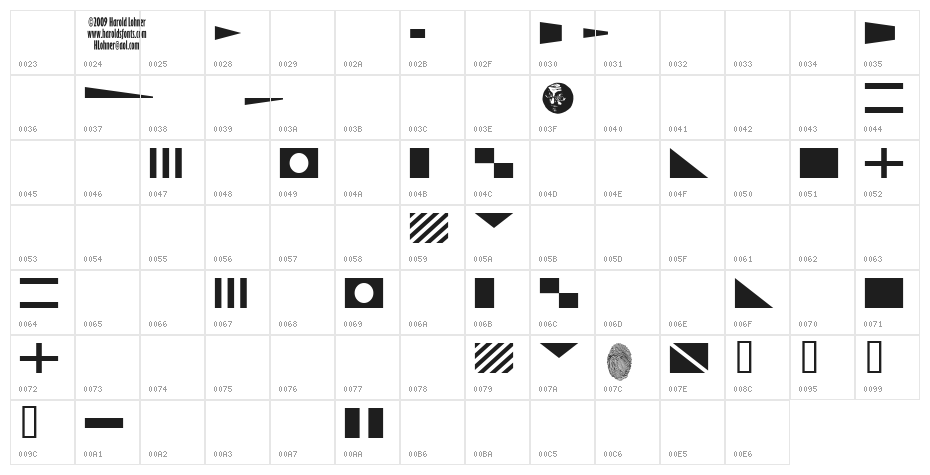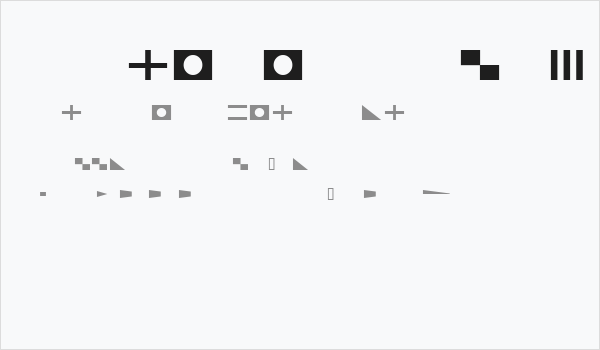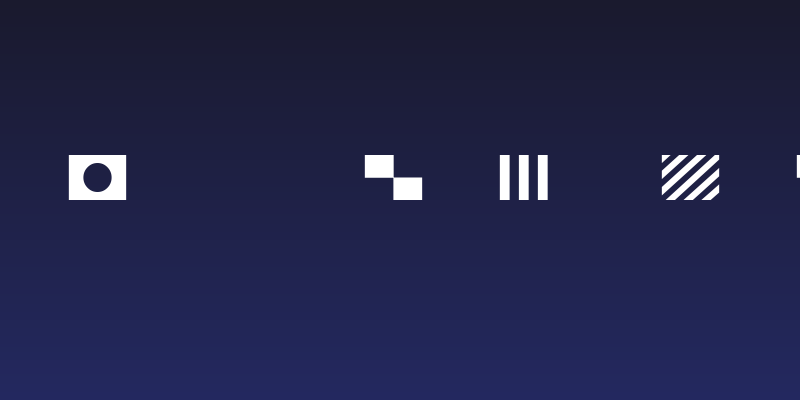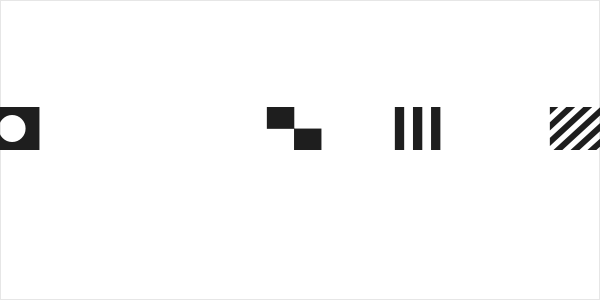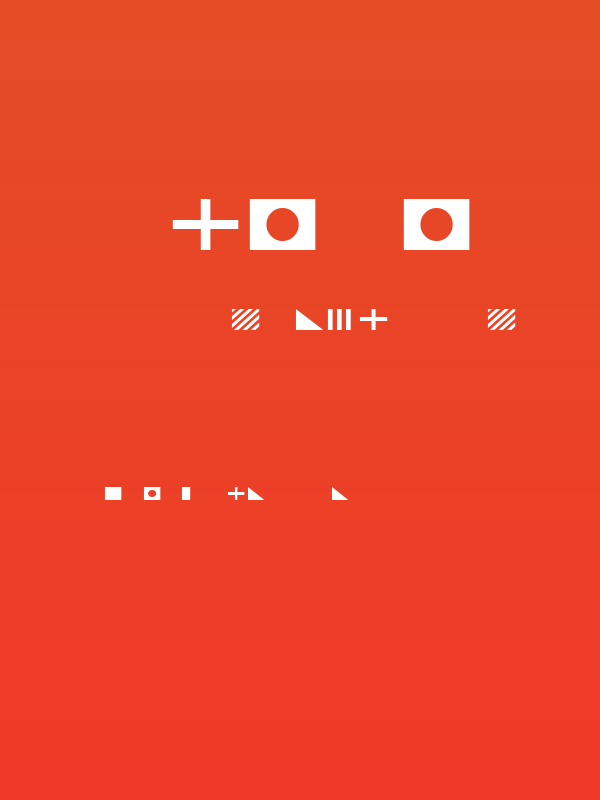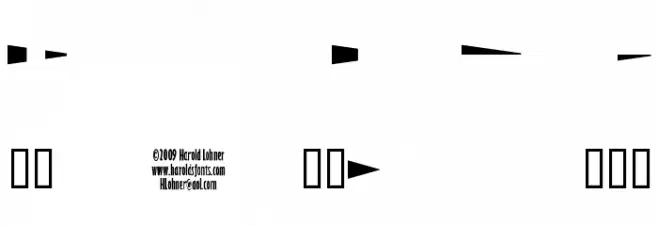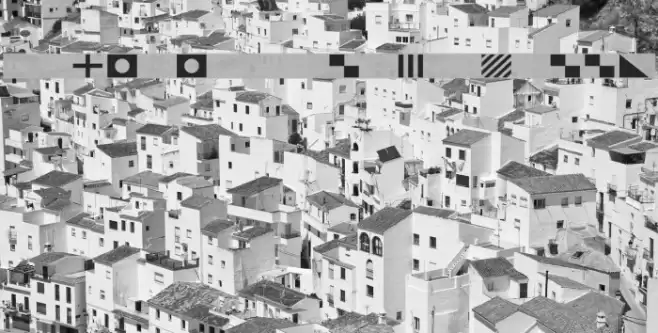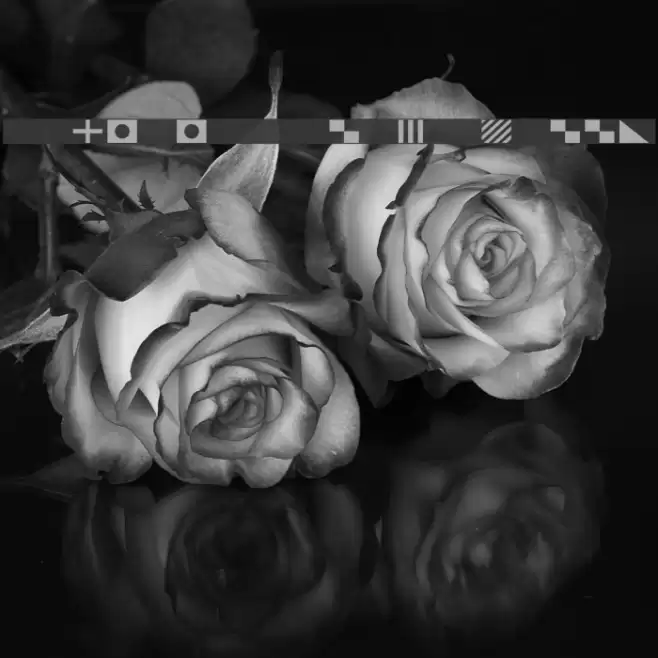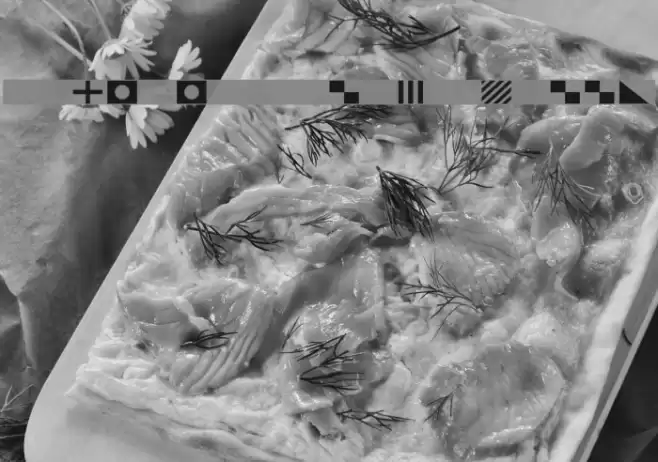
Maritime Flags Yellow Font
Maritime Flags Yellow Description
This font is a unique collection of symbols inspired by maritime flags, featuring bold geometric shapes and patterns. Each character is represented by a distinct flag design, utilizing a combination of lines, circles, and squares to convey a nautical theme. The style is highly decorative, making it suitable for creative projects that require a maritime or nautical aesthetic. The characters are evenly spaced, ensuring clarity and readability despite their complex designs.
| Use Case | Logos, Posters, Themed Events |
| Proposed Projects | Ideal for nautical-themed designs, educational materials on maritime signals, or creative branding for marine-related businesses. |